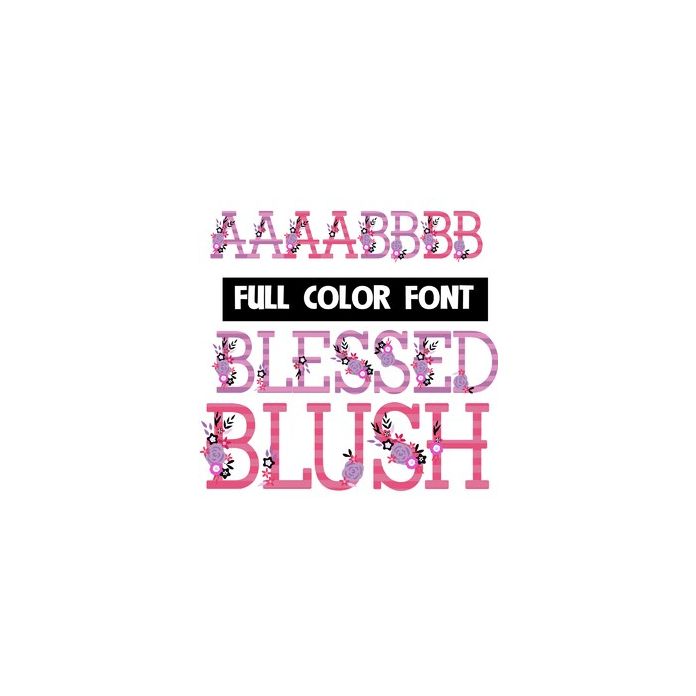
This full-color font features green striped lettering with pink and black florals. There is an alt case with red lettering that you can access through your system or Silhouette's glyph map.